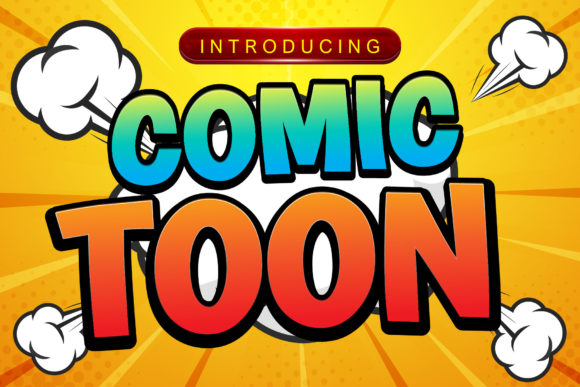
Introducing Comic Toon Font: The Ultimate Display Font for Dramatic Emphasis
Are you looking for a font that can add a touch of fun and coolness to your designs? Look no further than Comic Toon Font! This display font is perfect for titles or words that need a more dramatic emphasis. With its unique and playful style, Comic Toon Font is sure to enhance any creation and make it stand out from the crowd.
What is Comic Toon Font?
Comic Toon Font is a display font designed to bring a sense of fun and excitement to your designs. Its bold and playful style makes it perfect for use in titles, headings, and other text elements that need to grab attention. Whether you’re designing a poster, flyer, or social media graphic, Comic Toon Font is sure to make a statement.
Key Features of Comic Toon Font
So, what makes Comic Toon Font so special? Here are just a few of its key features:
- Unique and Playful Style: Comic Toon Font has a one-of-a-kind design that’s sure to turn heads. Its bold lines and playful curves make it perfect for adding a touch of fun to your designs.
- Dramatic Emphasis: This font is designed to make a statement. Use it to add emphasis to important text elements, such as titles or headings.
- Versatile: Comic Toon Font can be used in a wide range of design applications, from posters and flyers to social media graphics and more.
- Easily Readable: Despite its bold and playful style, Comic Toon Font is still easy to read, making it perfect for use in titles and headings.
Benefits of Using Comic Toon Font
So, why should you choose Comic Toon Font for your next design project? Here are just a few benefits of using this amazing font:
- Adds Visual Interest: Comic Toon Font is sure to add visual interest to your designs, making them more engaging and attention-grabbing.
- Enhances Creativity: With its unique and playful style, Comic Toon Font can help inspire creativity and add a touch of fun to your designs.
- Perfect for Dramatic Emphasis: This font is designed to make a statement, making it perfect for adding dramatic emphasis to your text elements.
- Great for a Wide Range of Design Applications: Comic Toon Font can be used in a wide range of design applications, from posters and flyers to social media graphics and more.
How to Use Comic Toon Font
Using Comic Toon Font is easy! Here are a few tips for getting the most out of this amazing font:
- Use it for Titles and Headings: Comic Toon Font is perfect for use in titles and headings, where its bold and playful style can really make a statement.
- Experiment with Different Colors: Try pairing Comic Toon Font with different colors to really make it pop.
- Use it to Add Emphasis: Use Comic Toon Font to add emphasis to important text elements, such as calls-to-action or key messages.
- Don’t be Afraid to Get Creative: Comic Toon Font is a versatile font that can be used in a wide range of design applications. Don’t be afraid to get creative and try new things!
Why Comic Toon Font is a Great Addition to Your Font Library
Comic Toon Font is a great addition to any font library. Here are just a few reasons why:
- Unique Style: Comic Toon Font has a unique and playful style that’s sure to add a touch of fun to your designs.
- Versatile: This font can be used in a wide range of design applications, from posters and flyers to social media graphics and more.
- Easily Readable: Despite its bold and playful style, Comic Toon Font is still easy to read, making it perfect for use in titles and headings.
- Great for Dramatic Emphasis: This font is designed to make a statement, making it perfect for adding dramatic emphasis to your text elements.
In conclusion, Comic Toon Font is a cool and fun display font that’s perfect for adding a touch of drama and emphasis to your designs. With its unique and playful style, this font is sure to enhance any creation and make it stand out from the crowd. Whether you’re designing a poster, flyer, or social media graphic, Comic Toon Font is a great choice. So why wait? Add Comic Toon Font to your font library today and start creating amazing designs!